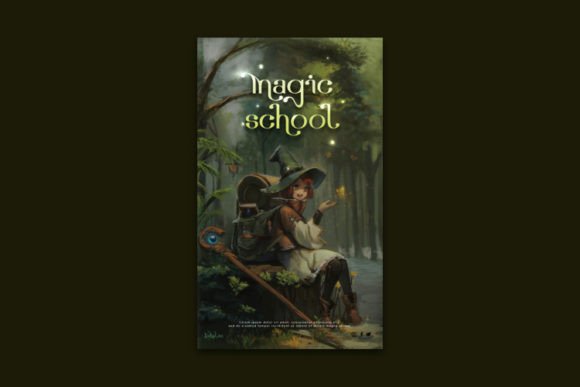
Enchanted Font
Enchanted is an incredibly cool and unique display font. It has fantasy and mystical vibes and it will undoubtedly immerse your designs into a magical world.